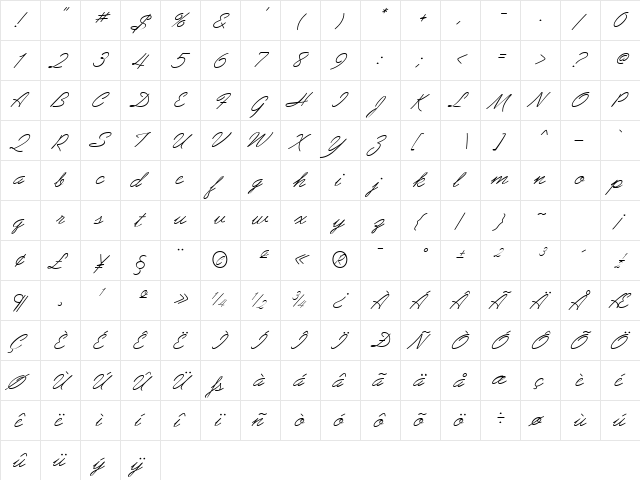
Abrazo Script SSi Italic
Design Context for Abrazo Script SSi Typeface
Abrazo Script SSi brings a calligraphic fluidity to the page — its connecting strokes and expressive curves give it an unmistakably human quality.
Font Pairing: Combine Abrazo Script SSi with a simple geometric sans for maximum contrast — the tension between flowing curves and clean structure is a classic typographic pairing.
Pro Tip: Pair Abrazo Script SSi with a clean sans-serif for supporting text. The contrast between fluid script and geometric structure creates an elegant typographic hierarchy.